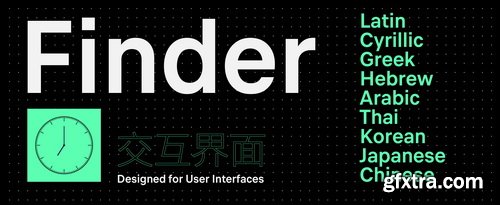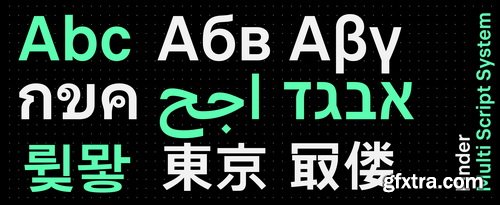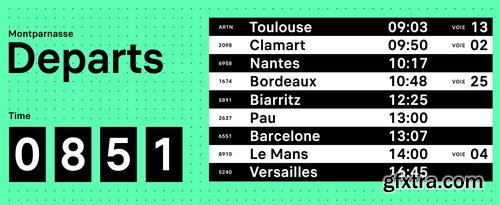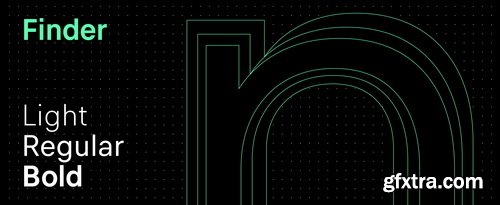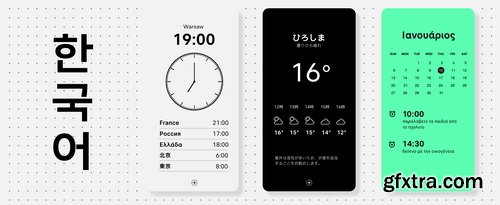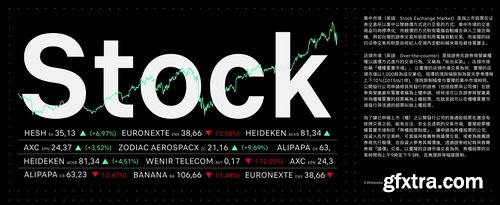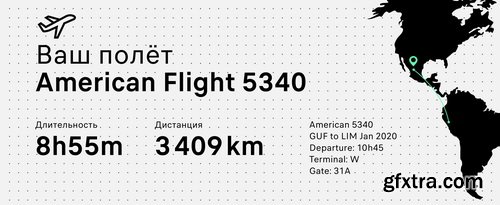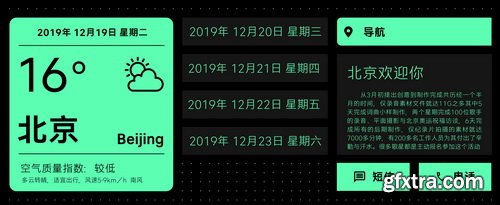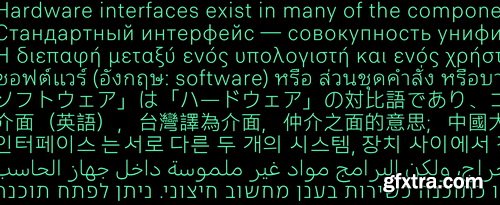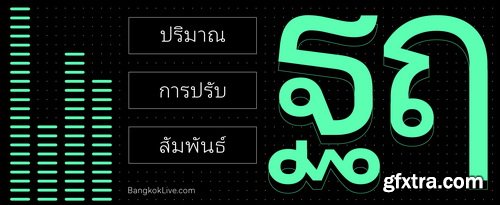
Finder Font Family
Finder is a neutral sans serif typeface designed for multi script applications in user interfaces. Conceived specifically for smaller sizes open design, large counters and gaenerous spacing significantly improve legibility. Neutrality helps to keep user experience simple without distracting the reader.Finder would be perfect for any UI project and will be especially precious for an international company that expands in new markets and is looking for a consistent design/communication across platforms and all its markets and countries.
Scripts ; Arabic, Cyrillic, Greek, Hangul, Hebrew, Japanese, Latin, Simplified Chinese, Thai, Traditional Chinese